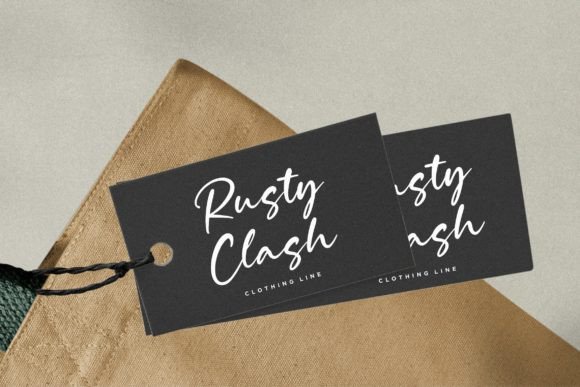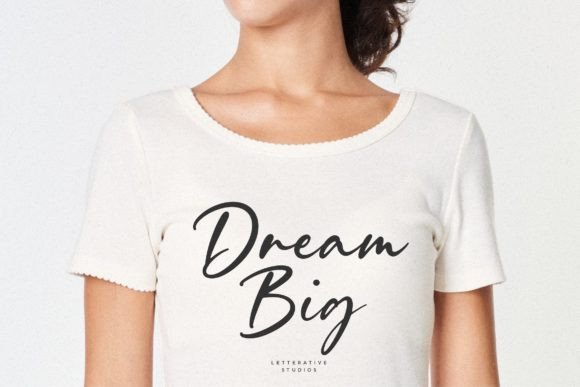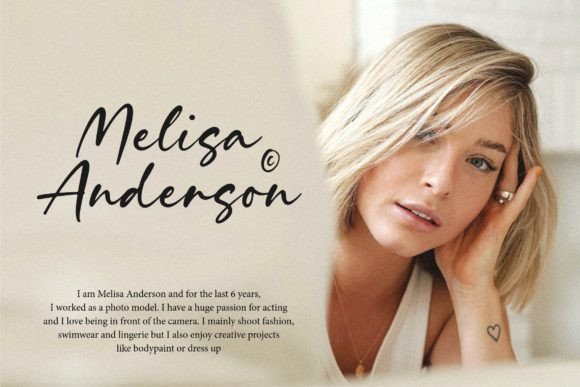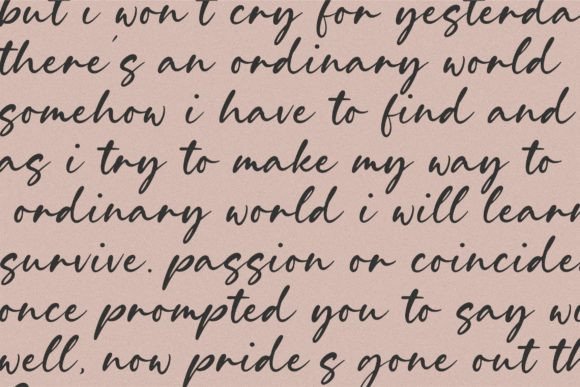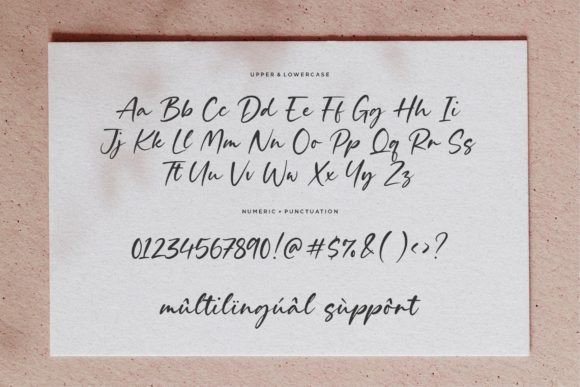
Introduction to Cinderland Font
Have you ever stumbled upon that perfect font while working on a creative project, and suddenly, everything falls into place? That moment of serendipity is exactly what happens when you discover the Cinderland Font.
This beautiful Modern Handwritten Font is not just a pretty face; it’s a valuable design resource that can elevate your projects to the next level. Whether you’re a seasoned designer or a crafty enthusiast, Cinderland Font has the potential to become your go-to font for any occasion.
Key Features of Cinderland Font
- Unique, hand-drawn design with a creative twist, perfect for various design projects
- High-quality font with a transparent background, ideal for use on various backgrounds and designs
- Includes a range of characters, including uppercase and lowercase letters, numbers, and punctuation marks
- Perfect for use in various creative projects, such as logos, branding, and graphic design
Honest Review: Cinderland Font
As a designer, I’m always on the lookout for unique and versatile fonts that can elevate my creative projects. The Cinderland Font caught my eye, and I’m excited to share my honest review with you.
Here are some things that work well: ✨
- High-quality design: The font has a beautiful, elegant aesthetic that’s perfect for creative projects.
However, there are some limitations to consider: ⚠️
- Limited font styles: While the font itself is beautiful, the style options are somewhat limited.
- No bold or italic variants: These features would be nice additions to the font, but they’re not currently available.
Overall, I’m impressed with the Cinderland Font’s design quality and ease of use. While it may not offer the most extensive range of font styles, it’s still a valuable resource for designers looking for a high-quality, free download. If you’re working on a creative project and want a beautiful, elegant font, I’d definitely recommend giving Cinderland a try.
Tips for Getting the Most Out of Cinderland Font
The Cinderland Font is perfect for creating invitations, social media graphics, and blog posts. Its unique style and high-quality design make it a great addition to any creative project.
Compared to Cinderland Font, Dancing Script Font has a more fluid and dynamic appearance, making it suitable for projects that require a more energetic design approach. It also features a transparent background, allowing for easy editing and customization.